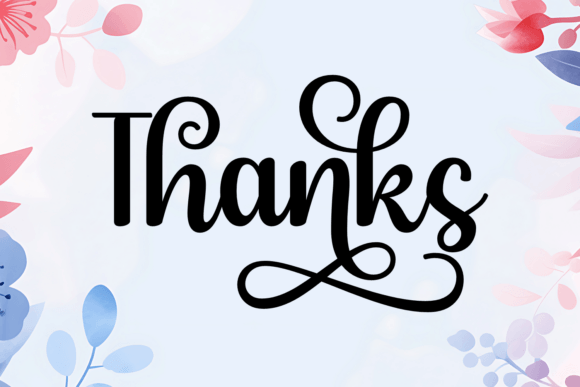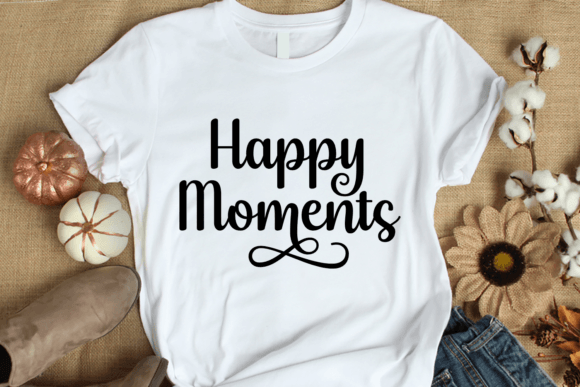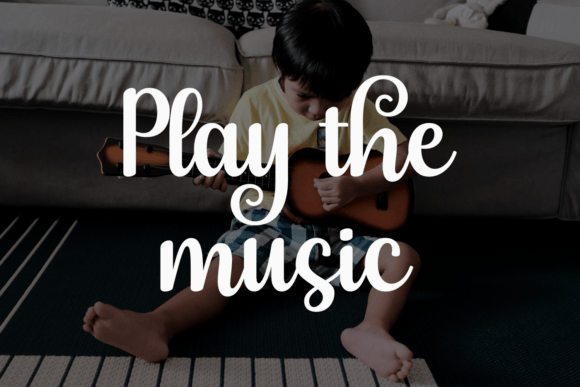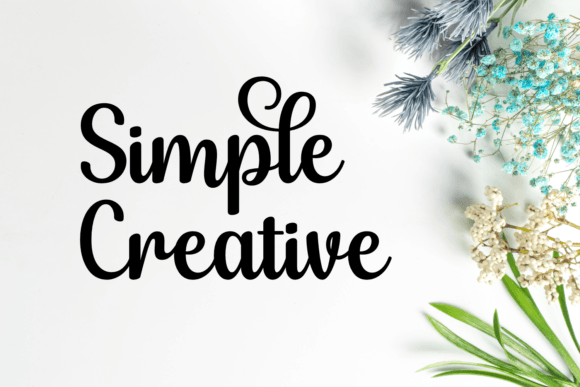
Introduction to Ceshida Font
Ceshida is a beautiful, bold script font that features elegant swashes.
Its flowing letters add a touch of charm and romance, making it perfect for invitations, greeting cards, and any design that needs a warm, heartfelt feel .